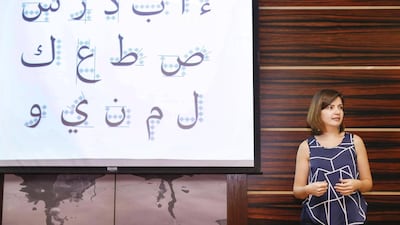
From script to font, Arabic’s struggle to reclaim its calligraphic beauty
For a language with a rich, visual, calligraphic history, the advent of the printing press was not kind to Arabic script.
The beautiful handwritten scripts for which Arabic was famed did not translate well into the printed word. Ever since, Arabs have had to make do with limited and shoddy imitations of their calligraphy or with Latinised versions of fonts.
The printing press was invented in the 15th century with Latin script in mind, so the development of Arabic script, as with that of other eastern languages, lagged far behind.
In the West, artists, technicians and typographers constantly experimented with new type designs to make the printed page easier and more attractive to read. The same did not happen in the Arab world.
Arabic script struggled to adapt to mechanical typesetting machines, then to the digital format used by modern technology.
This is reflected in the fact that there are fewer than 1,000 digital Arabic fonts, compared to more than 80,000 fonts – and counting – in the Latin script.
Dr Nadine Chahine, an Arabic specialist, has conducted workshops at the Dubai Arabic Calligraphy Exhibition and describes typography as the voice with which a language visually communicates.
Dr Chahine emphasises the need for fonts that are relevant to Arabs to describe how they see their world.
“In Arabic, this visual representation is missing,” she says. “If you want to be sporty and active, you can’t find a font that will represent that in Arabic. It is like you want to speak but you do not have the words, as the words are the typefaces.”
Dr Chahine says design cannot be separated from the cultural and political landscape. “Typography is an enabler for a cultural view because if we have ugly looking posters or books, it’s as if we Arabs do not deserve better than this. But if we aim higher, then typography is a projection of how we want to be.” She warns against continuing to create content that looks “ugly and outdated” because it puts off younger people from speaking and interacting in Arabic.
“We need to be able to show that Arabic and its face, the script, is evolving to meet modern demands. Otherwise, the language will slowly deteriorate and will end up in a museum.”
The historic challenge to Arabic printing, she says, is that the printing press “was a mechanism that had already been developed for Latin, and Arabic – with its complex script – had to try to fit in.”
Things did not improve with digital technology. Dr Chahine describes the quality of the computerised Arabic fonts in the 1980s and ‘90s as “awful and ugly”.
“There were very few people who were trained in the art of good typefaces. You would have a calligrapher drawing the design by hand and then it would be scanned and automatically made into a font without the process of testing and correction. As a result, we ended up with poorly made fonts.”
Dr Chahine, who did her doctorate in legibility, says too little research has been done on the readability of various Arabic type faces. While Arabic typography has reflected changes of aesthetic taste, a script pleasing to the eye is not necessarily the most readable, she says.
What is needed, she believes, is more research to ascertain the Arabic reader’s response to the different typefaces they see every day.
“Are the typefaces difficult to read? Do they slow reading speeds? We need to be able to develop good typefaces that encourage reading, because we have very low literacy rates and people are not reading. An Arab reads only four pages on average a year,” she says.
But not all is doom and gloom. The advance in digital technologies over the past decade means designers now have the means to reclaim what was lost with the printing press and create a truly modern Arabic script.
“The advent of OpenType software does away with many limitations, and now it is truly possible to design typefaces which are true to calligraphic standards or create new fonts,” says Dr Chahine, one of the pioneers in this movement.
“The technology has in the past few years evolved to a point where the time needed to create a font has decreased by 60 per cent. This is revolutionising the industry.”
Pascal Zoghbi, a leading Arabic type designer and typographer, says his field is still in its “nascent stage”. “The industry still faces lots of challenges. For example, we only have about 10 Arabic typographers who could be considered to be the best in the industry, while in English there are hundreds,” he says.
Piracy is another major headache for the industry. “Just like with any content produced in the Arab world, we suffer from lack of copyright protection. If we need more investment in this market, then we need to protect the copyright of the content creators, or else they will not be able to generate an income from their work.”
Some support has come from Dubai Culture, with the Dubai International Arabic Calligraphy Exhibition, which runs until May 15.
Dr Chahine’s workshops provide training for designers, which she says are “very necessary” to provide a platform for experienced typographers like her to pass on knowledge to those just beginning their work.
“We need to see language as a tree that needs to be constantly watered,” she says. “If you leave this, then it dies of neglect. But if you keep nourishing it, then it will adapt and grow.”